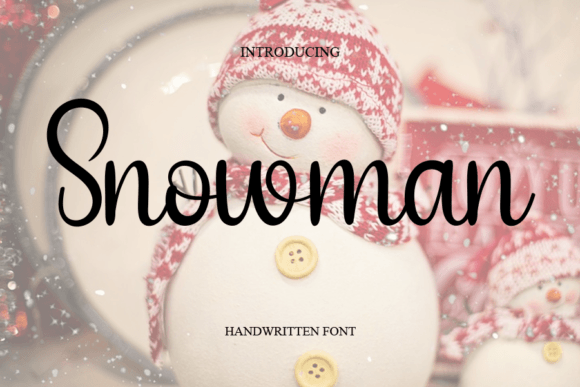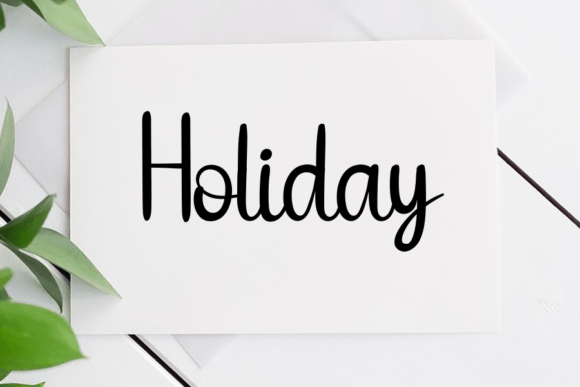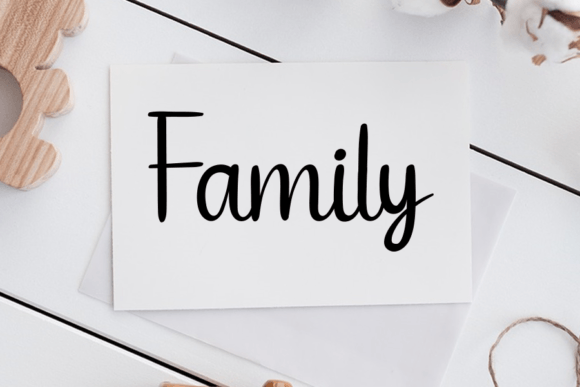
About Snowman Font
Snowman is a simple and friendly handwritten font. Whether you’re using it for crafts, digital design, presentations, or making greeting cards, this font has the potential to become your favorite go-to font, no matter the occasion